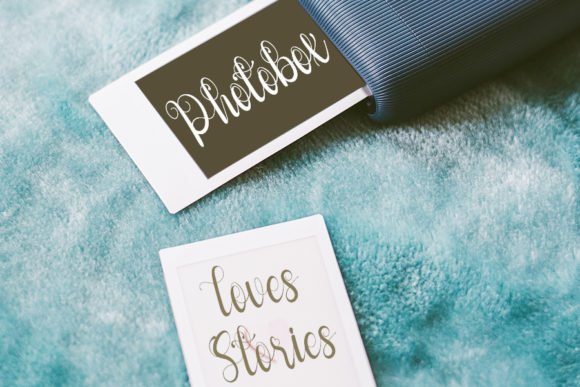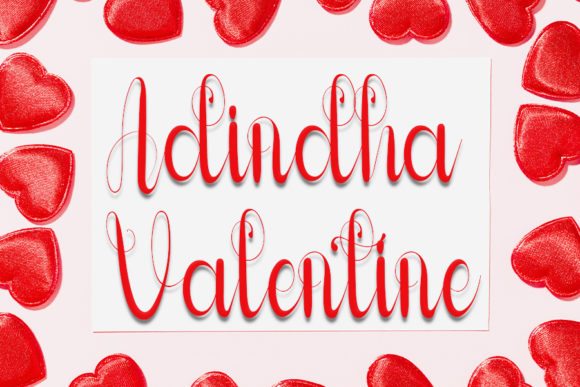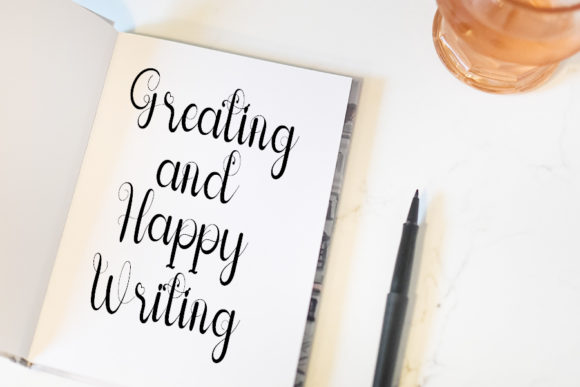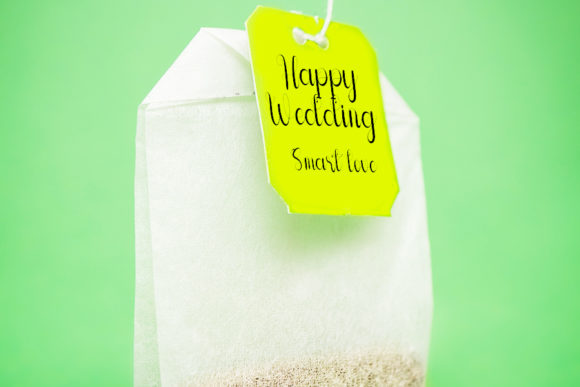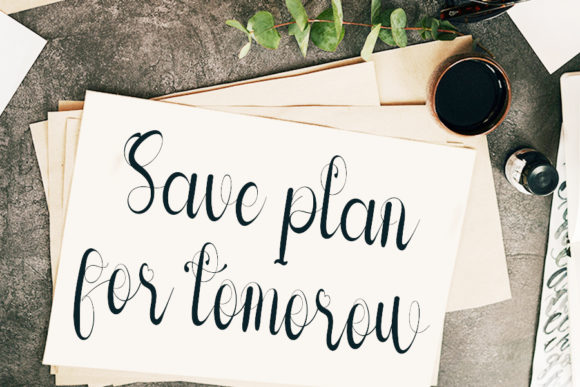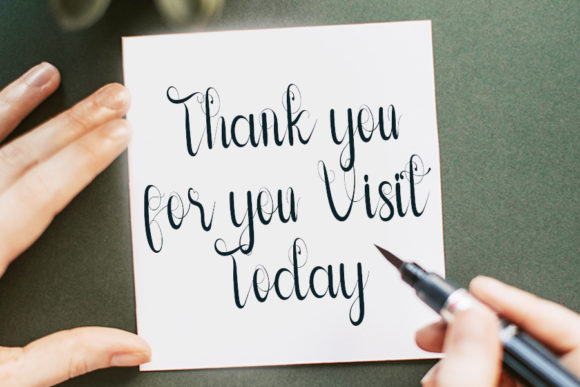
The Sweet Charm of Faligata Font: A Designer’s Delight
I still remember the time I was working on a wedding invitation project, and my client asked for a font that was both elegant and playful. I scoured the internet, tried out countless fonts, but nothing seemed to fit the bill. That was until I stumbled upon Faligata Font. Its romantic and sweet calligraphy style instantly won me over, and I knew I had found the perfect fit. In this article, I’ll share my love for Faligata Font, its features, and how to make the most of it in your designs.
An Honest Review of Faligata Font
What I Love About Faligata Font
- ✨ Romantic and sweet calligraphy style that’s perfect for wedding invitations, logos, and more
- ✅ Elegant yet casual touch that adds a personal feel to any design
- 🖌️ Characters that dance along the baseline, creating a sense of movement and playfulness
- 💻 Highly versatile and can be used for various purposes, such as logos, headings, t-shirts, letterhead, signage, labels, news, posters, badges, and more
While Faligata Font is an excellent choice for many design projects, there are a few things to keep in mind:
- ⚠️ Some characters may not be suitable for body text due to their ornate nature
- 🤔 Limited availability of certain glyphs or special characters, which may require additional design workarounds
- Experiment with OpenType features, such as glyphs and stylistic alternates, to add more personality to your text
- Explore OpenType features, such as ligatures and swashes, to add more flair to your text
The Backstory of Faligata Font
Faligata Font was designed with love and care by a talented typographer who’s passionate about creating beautiful, functional fonts. The designer’s inspiration came from traditional calligraphy and handwriting, with a goal to create a font that’s both elegant and approachable. The result is a font that’s perfect for a wide range of design projects, from wedding invitations to logos and more.
Q: What is Faligata Font best used for?
A: Faligata Font is a versatile font that’s suitable for various design projects, including logos, wedding invitations, headings, t-shirts, letterhead, signage, labels, news, posters, badges, and more.
Q: Is Faligata Font available in different languages?
A: Faligata Font may not support all languages, but it does include a range of characters and glyphs to support various languages. Be sure to check the font’s language support before using it.